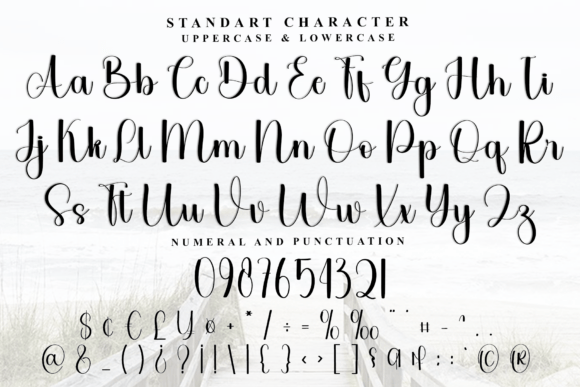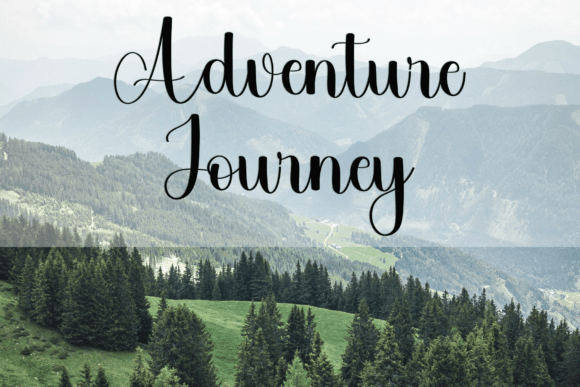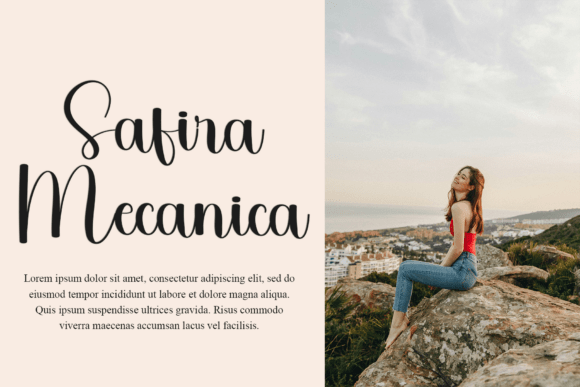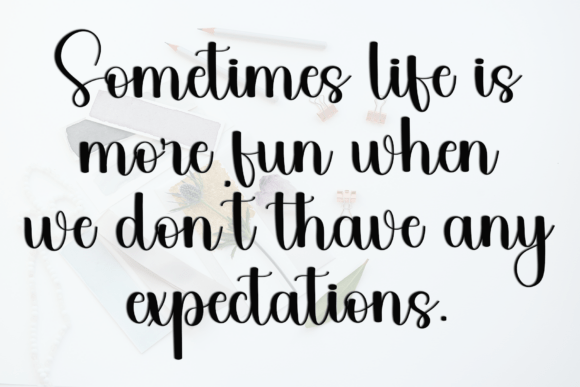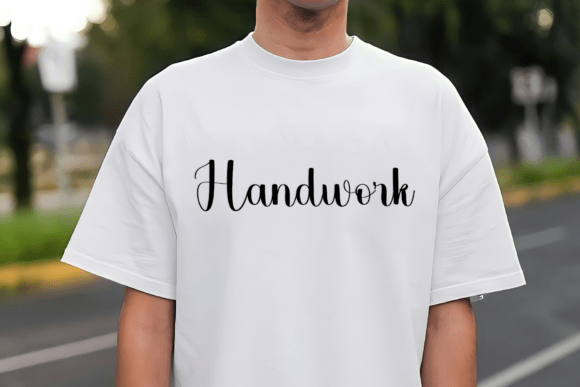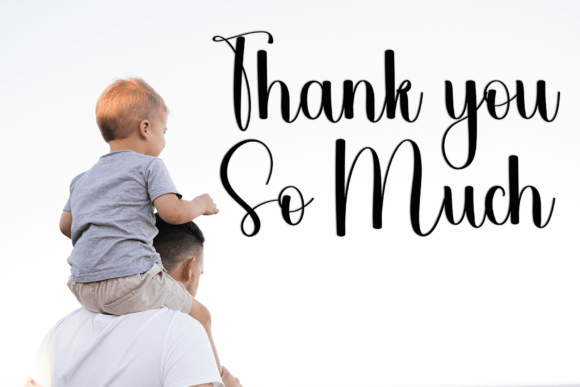
The Easter Bundle Font: A Game-Changer for Designers and Crafters
I’ll never forget the time I was working on an Easter-themed project for a client, and I just couldn’t find the right font to bring it all together. The designs were beautiful, but the fonts were either too boring or too over-the-top. That’s when I stumbled upon the Easter Bundle font, and it was love at first sight! 💕
This beautiful and eye-catching font is designed with a soft, unique touch that gives it a special character. Its distinctive strokes make it meaningful and versatile for future use. With various characters, it’s perfect for design projects, crafts, and other creative works.
- ✨ The Easter Bundle font is incredibly versatile and can be used for a wide range of projects, from design and crafts to digital and print media.
- 💫 The font’s unique and soft touch gives it a special character that sets it apart from other fonts.
- 📚 The font comes with various characters, making it perfect for creative works and design projects.
While the Easter Bundle font is amazing, there are a few things to keep in mind: 🤔
- ⚠️ Some users may find the font’s unique strokes and characters take some getting used to.
- ⚠️ The font may not be suitable for very formal or traditional designs.
The Easter Bundle font was inspired by the beauty of nature and the joy of the Easter season. The designer wanted to create a font that would capture the essence of this special time of year, with its soft, unique touch and distinctive strokes. The result is a font that’s both meaningful and versatile, perfect for a wide range of design projects and creative works.
A: The Easter Bundle font is a beautiful and eye-catching font designed with a soft, unique touch. Its distinctive strokes give it a special character, making it meaningful and versatile for future use.